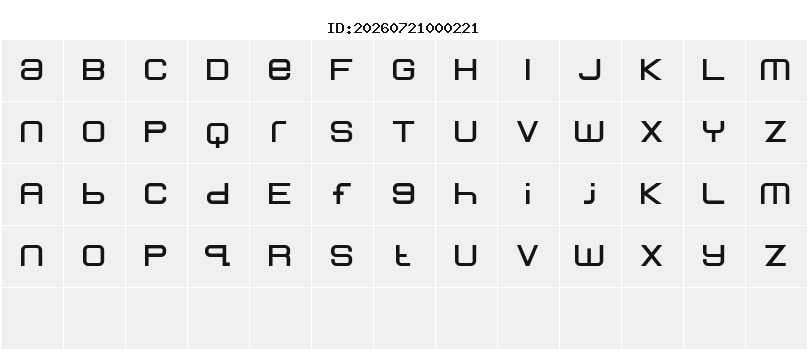
• Font Name: Flotsam Smart
• Full Font Name: Flotsam Smart
About Flotsam Smart.ttf
Flotsam Smart.ttf is a modern, elegant sans-serif font designed for ultimate readability and visual harmony. Perfect for branding, headlines, web design, and print materials.